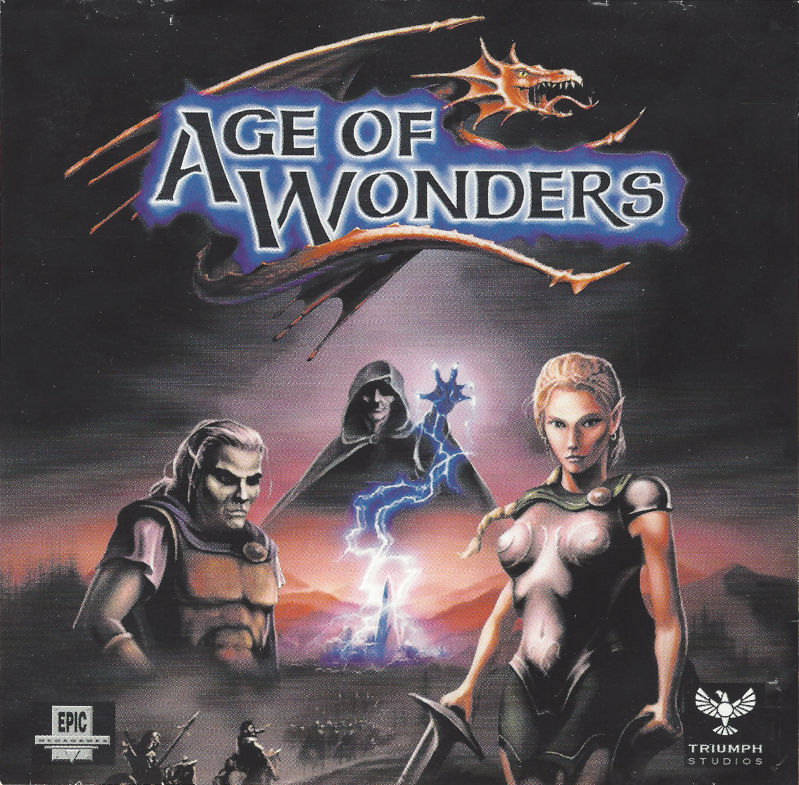
Age of Wonders Font
FantasyAge of Wonders is a turn-based strategy game series where players lead a fantasy army to conquer and explore a magical world. It features multiple races, classes, and a robust magic system to create diverse gameplay experiences.
The title of the video game seems to be set in Neue Hammer Unziale font. The American Uncial typeface was originally designed by Victor Hammer in 1943. Klingspor's Neue Hammer Unziale is a version of American Uncial with upper and lowercase letters.